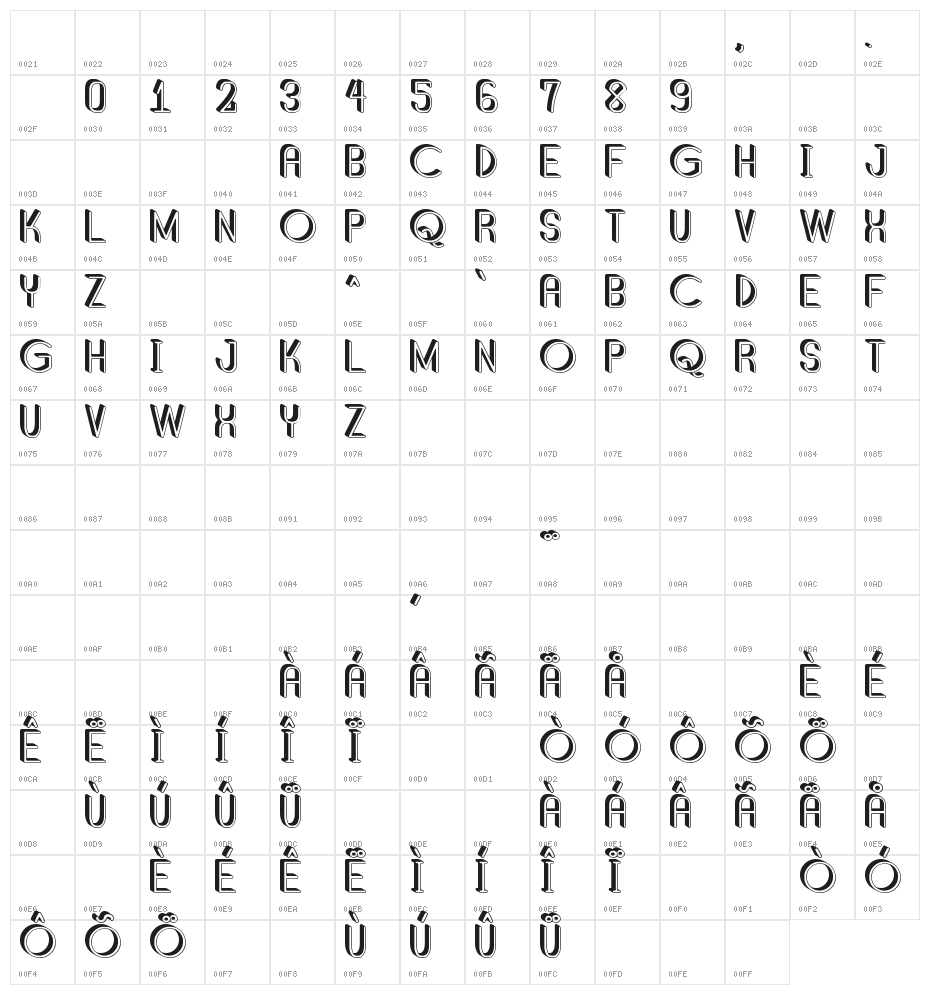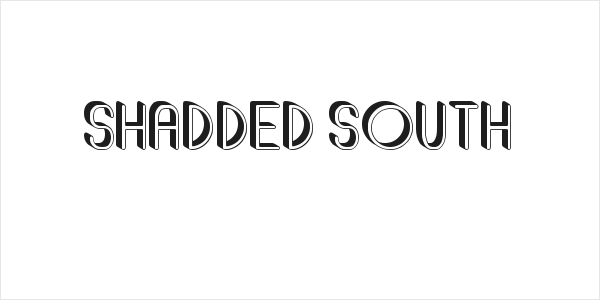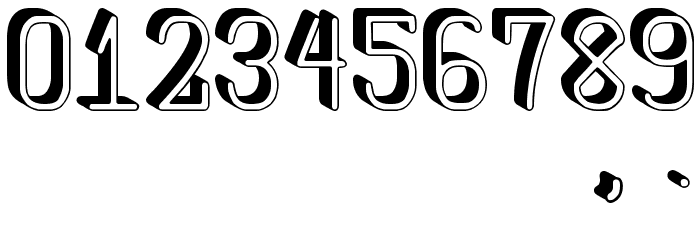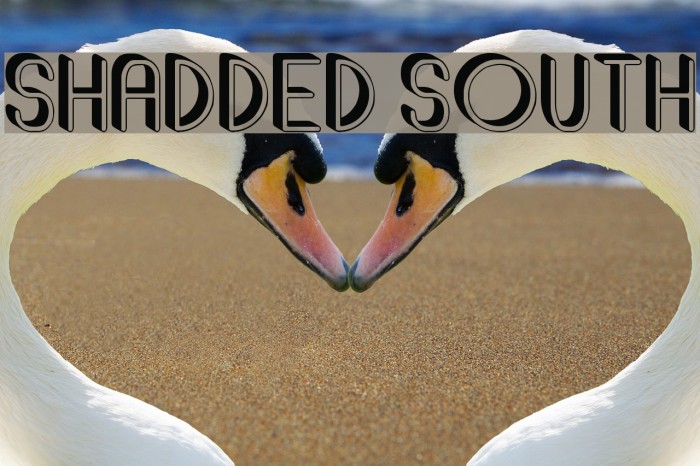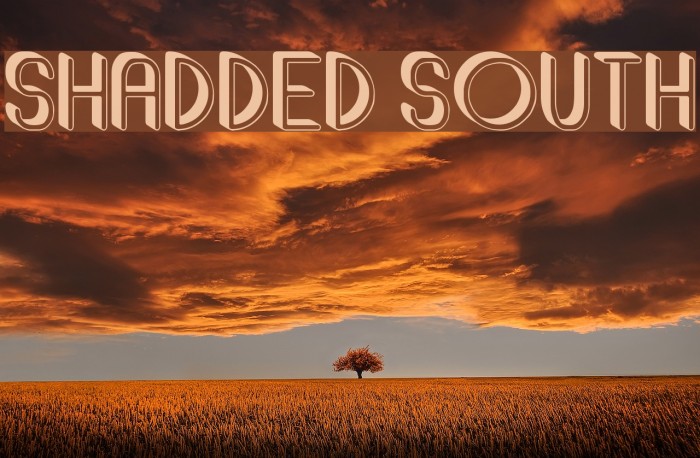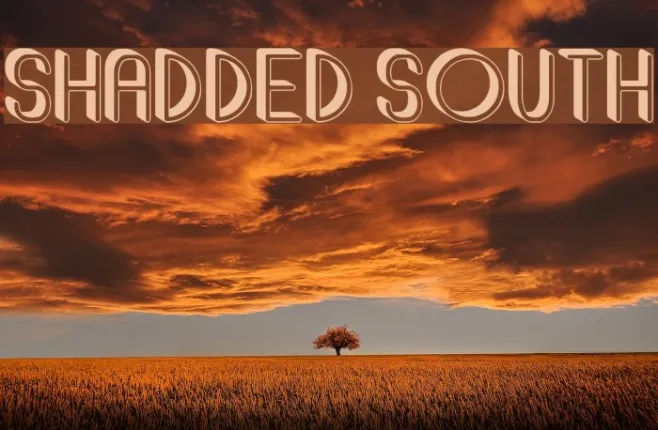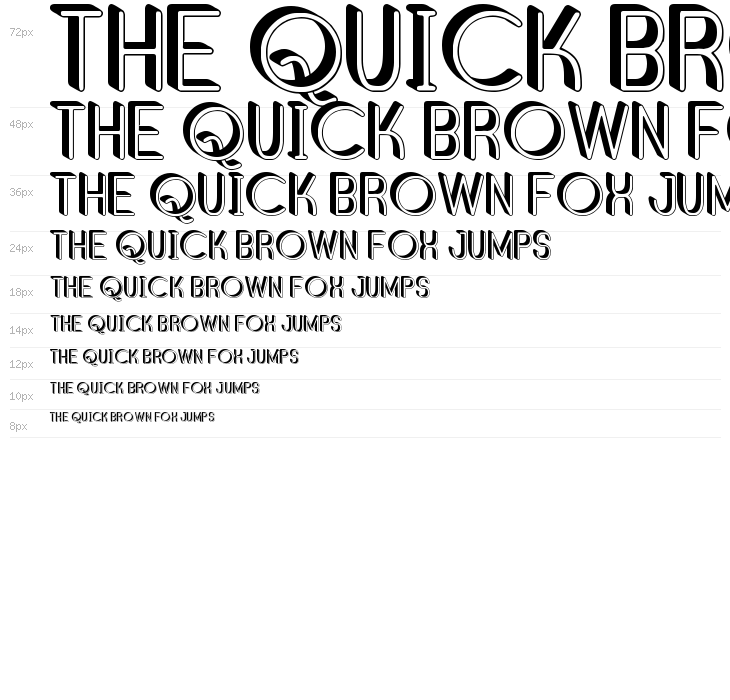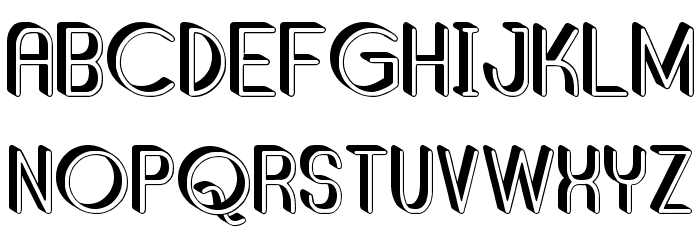
Shadded South Font
Shadded South Description
This font features a bold and striking design with a unique 3D effect created by its shaded elements. The characters are uppercase and numerals, each with a distinct shadow that gives a sense of depth and dimension. The style is reminiscent of vintage signage, with clean lines and a geometric structure that adds a modern twist. The font's playful yet structured appearance makes it versatile for various design projects. Its boldness ensures it stands out, while the shading adds an artistic flair.
| Overall Style | Vintage, Modern |
| Proposed Projects | Ideal for posters, retro-themed designs, branding, and headlines that require a standout, artistic touch. |